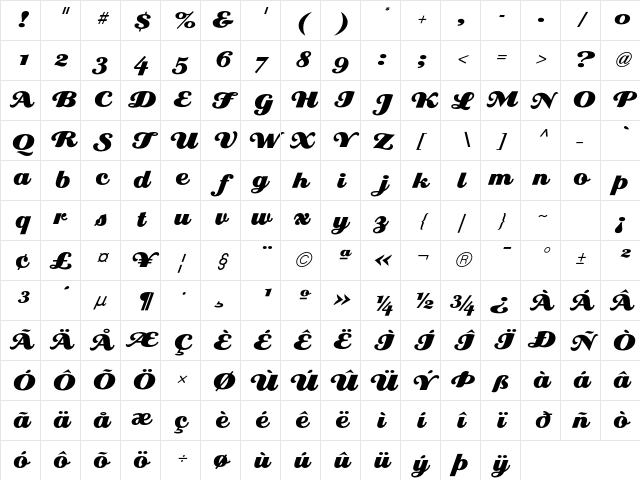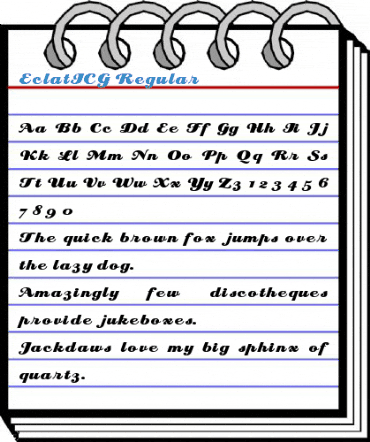
EclatICG Alt
Design Context for EclatICG
EclatICG is a composed and adaptable typeface that performs quietly and consistently across a wide range of design contexts.
Pro Tip: Use EclatICG in both headline and body roles to test its range before committing to a single application.